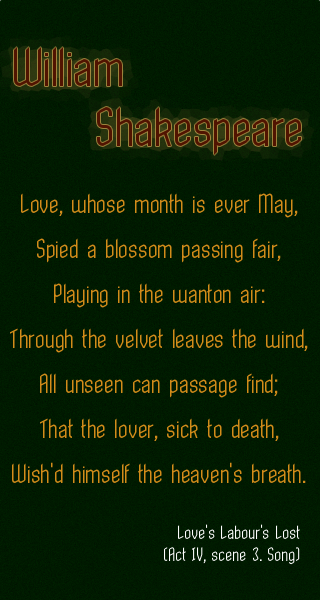
Grobesk
Dominik Kaisers (phate888)
A slanted sans serif font with, what is in my opinion, a little medieval touch. What do you think?
Excellent! Easy reading, with smart solutions for a slanted feel. 10/10!
Awesome! 10/10
Wow, great! Nice 'n readable, just how I like it :) 10/10
Excellent! It flows beautifully. 10/10